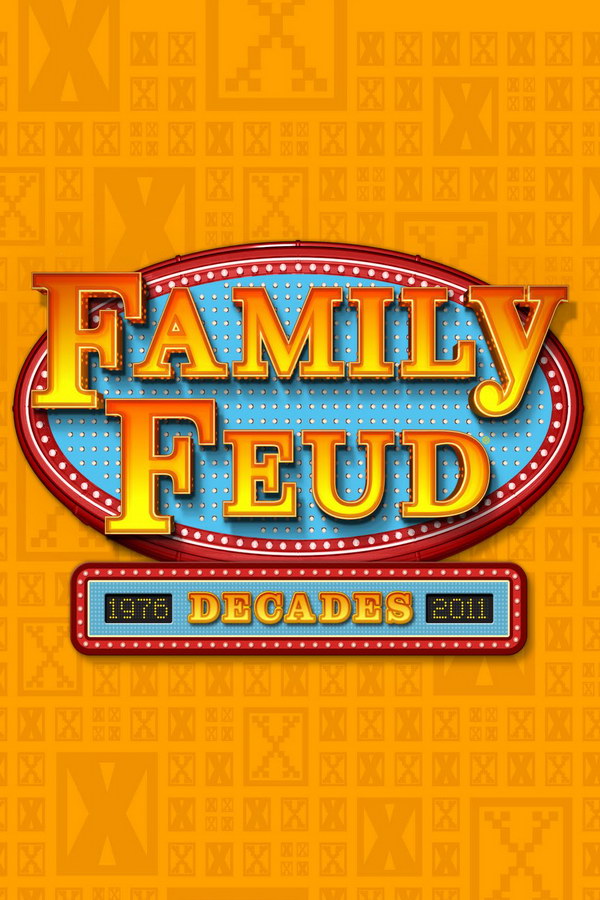
Family Feud Font
Fonts in UseFamily Feud is a popular American television game show where two families compete to guess the most popular answers to survey questions. The show first aired in 1976 and has since been adapted and broadcast in numerous countries worldwide.
It is likely that the Family Feud logo was created using Clarendon Bold, a slab serif font developed by Hermann Eidenbenz in 1953, featuring all-caps letters except for the "y". This commercial font can be found with more information here.